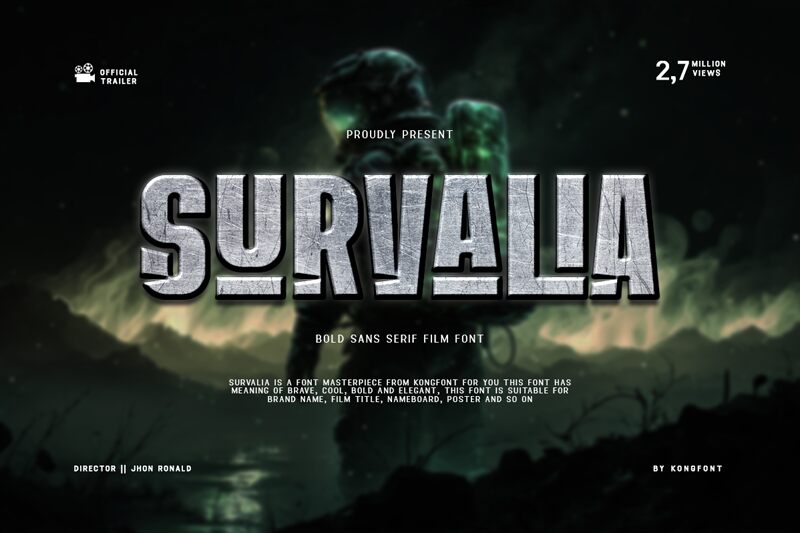
Survalia font by Kong Font is a free sans serif typeface that hits the page like a headline at full volume. Tall, ultra-condensed letters stack tightly together, forming a solid wall of black that feels strong, punchy, and unignorable. The squared shapes and straight-sided strokes give Survalia a rugged, industrial edge, like stenciled lettering on metal or bold type painted on stadium signage.
Using Survalia, you can squeeze big, shouty words into narrow spaces without losing impact, which makes this free font a natural fit for posters, sports graphics, banners, event flyers, album covers, and bold branding lockups. It shines on dark or bright backgrounds where its dense forms can really slam forward. For balance, pair Survalia with a clean, open sans in smaller text and let Survalia handle the loud, all-caps moments.